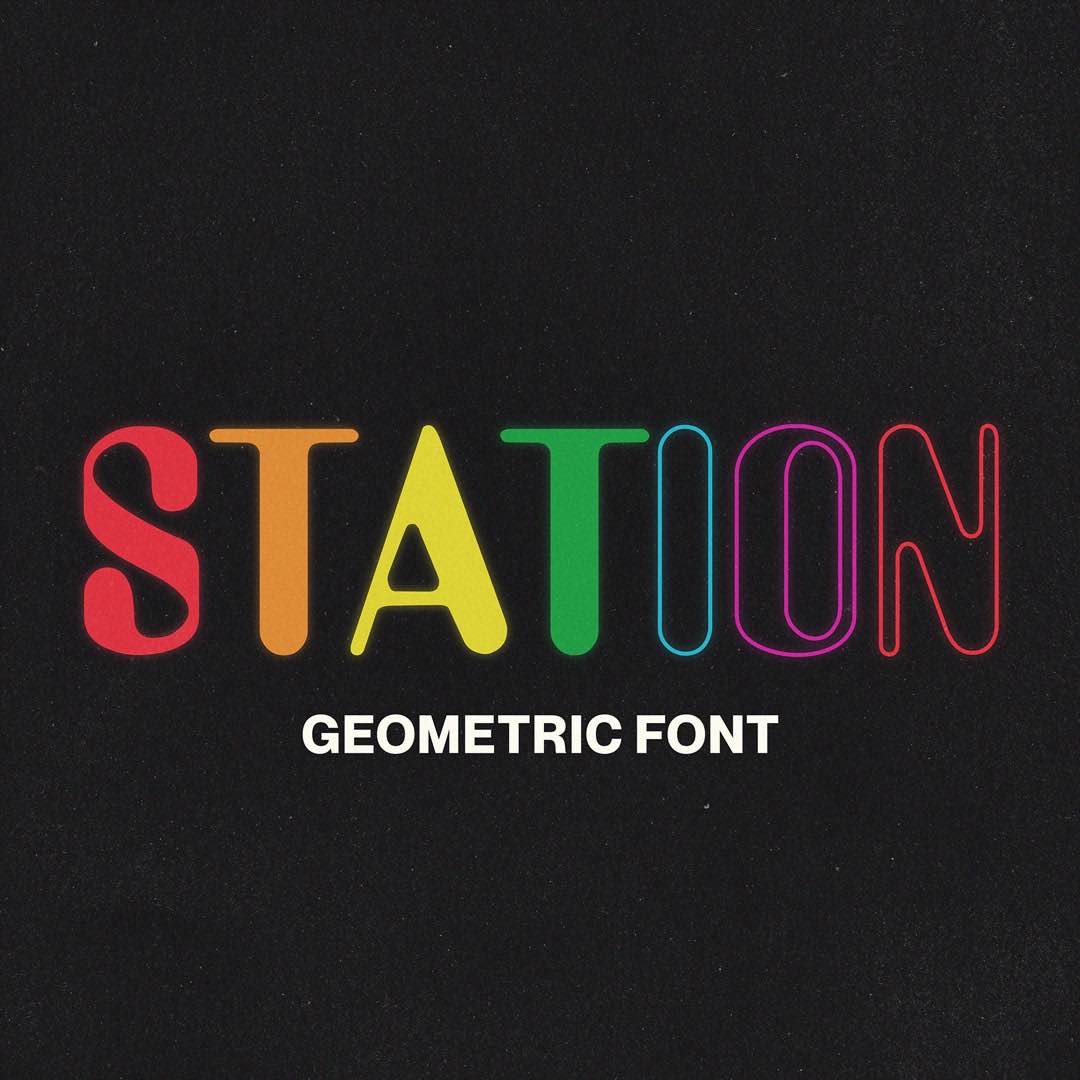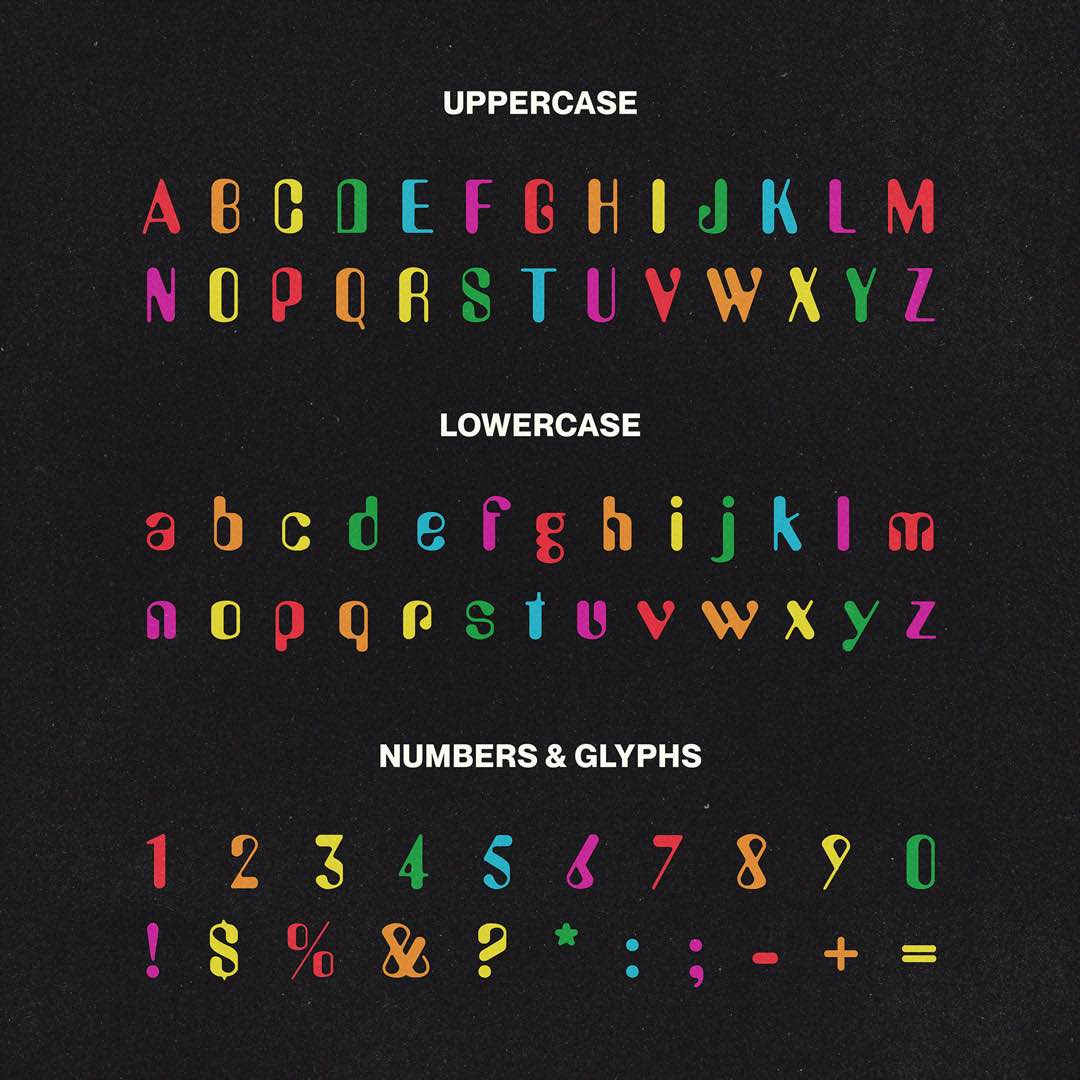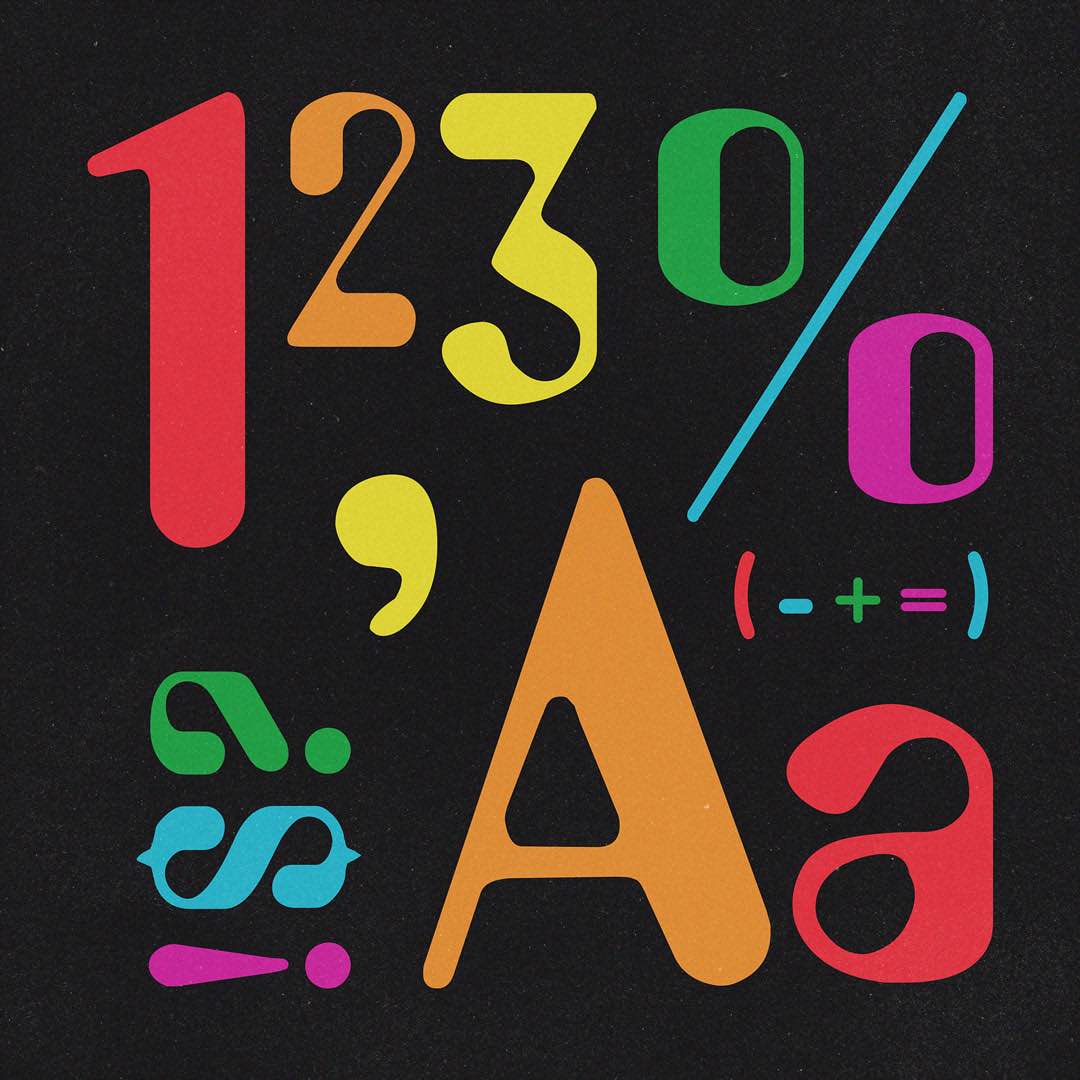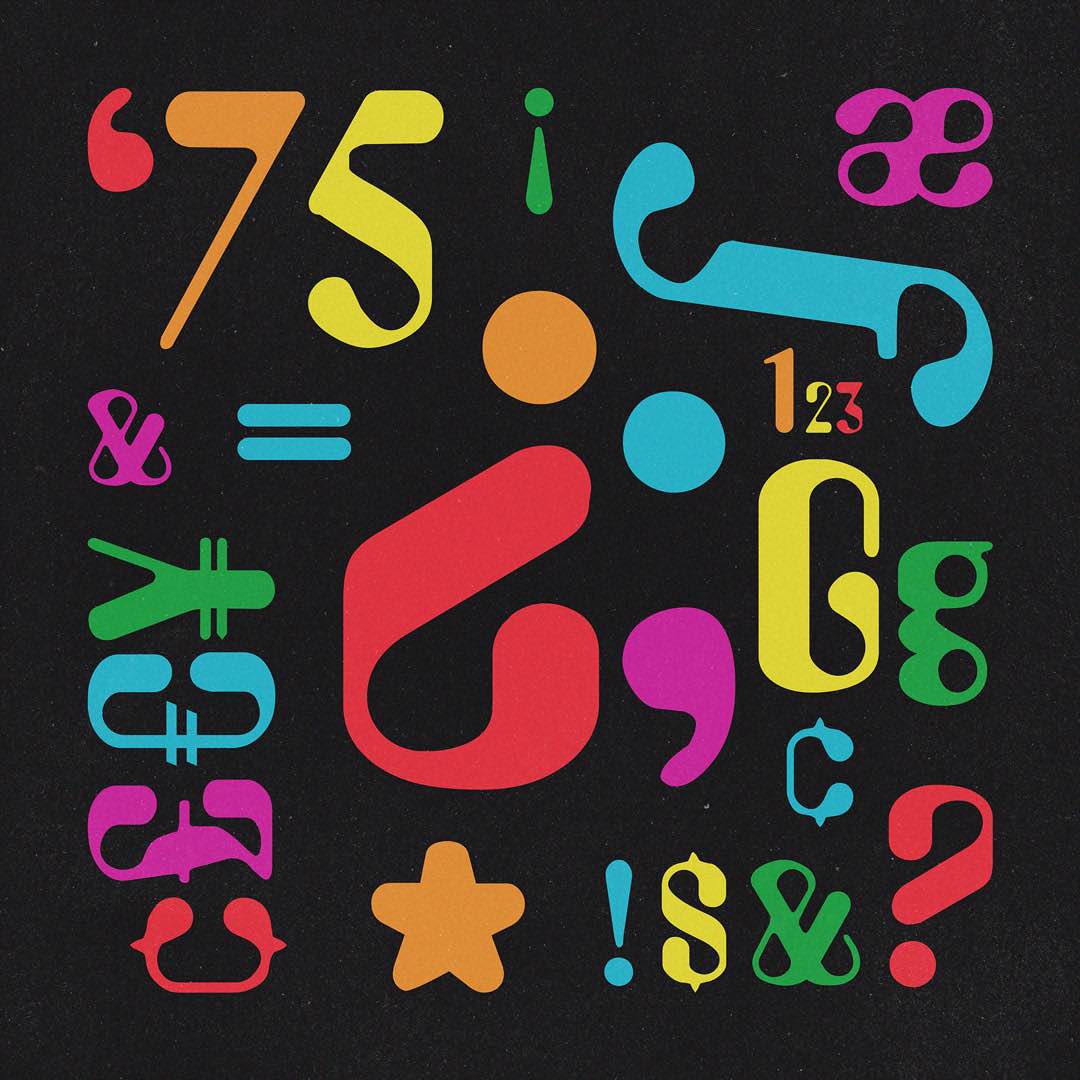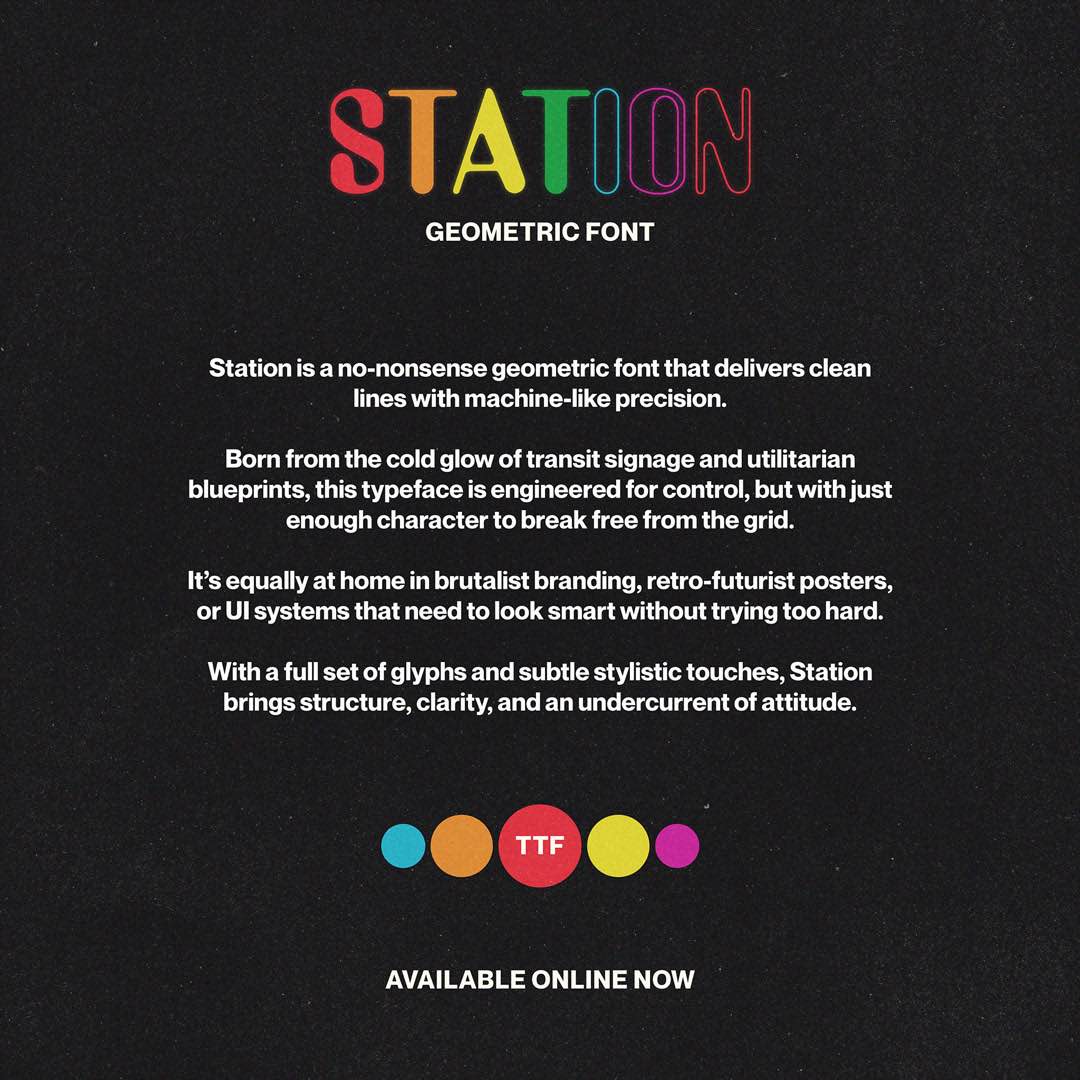
Station is a no-nonsense geometric font that delivers clean lines with machine-like precision. Born from the cold glow of transit signage and utilitarian blueprints, this typeface is engineered for control, but with just enough character to break free from the grid. It’s equally at home in brutalist branding, retro-futurist posters, or UI systems that need to look smart without trying too hard. With a full set of glyphs and subtle stylistic touches, Station brings structure, clarity, and an undercurrent of attitude.